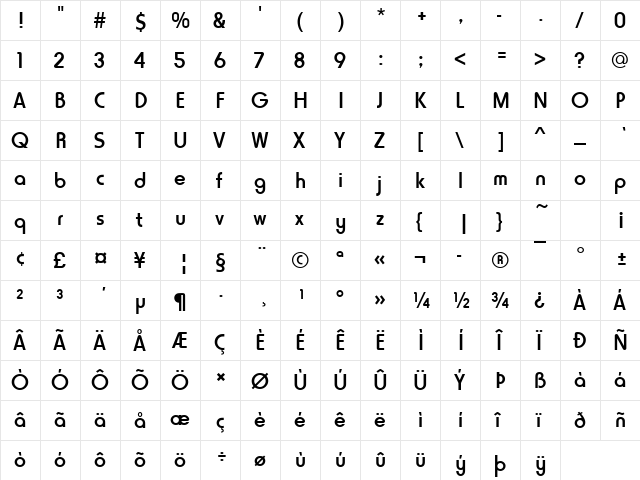
HoratioDMed Regular
Design Context for HoratioDMed Typeface
HoratioDMed takes a measured approach to typography — its balanced proportions and neutral character make it a reliable workhorse for both digital and print work.